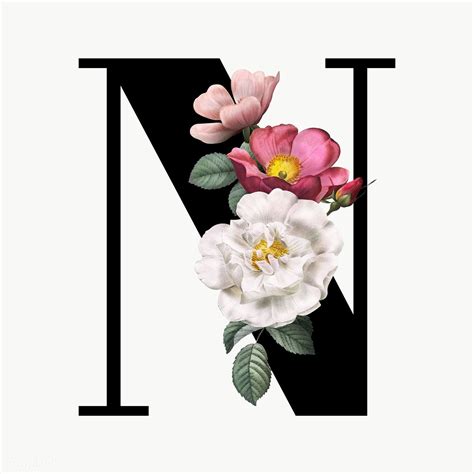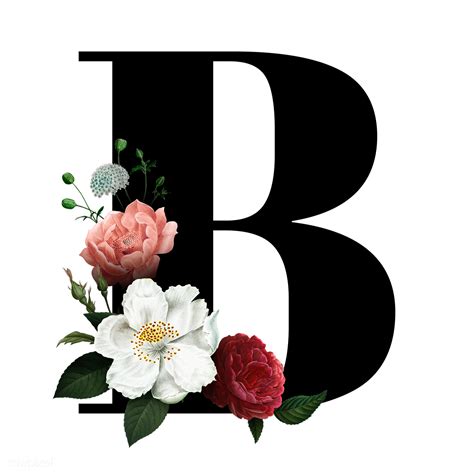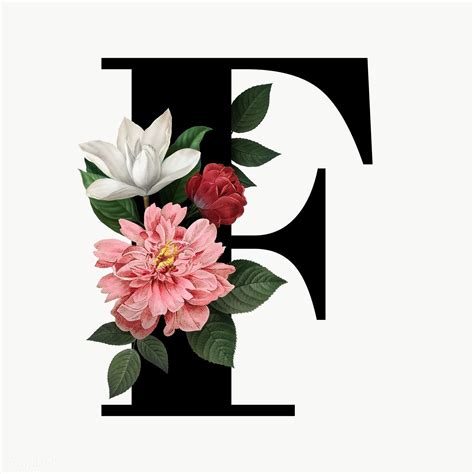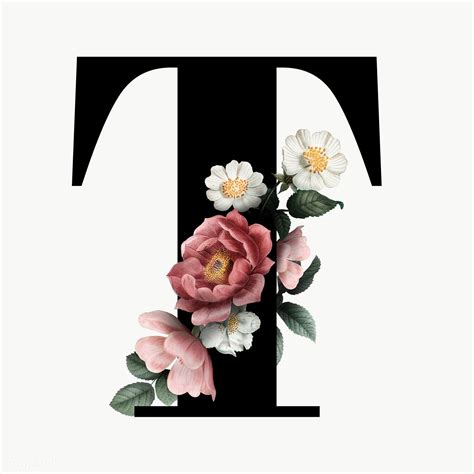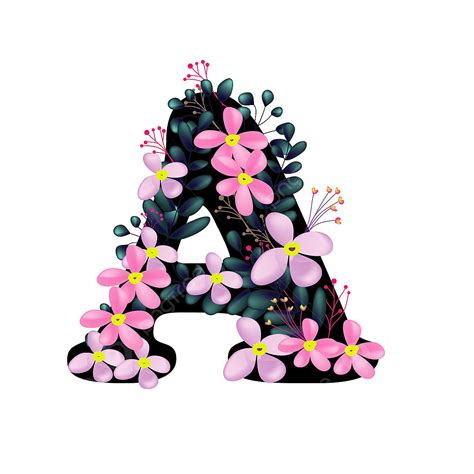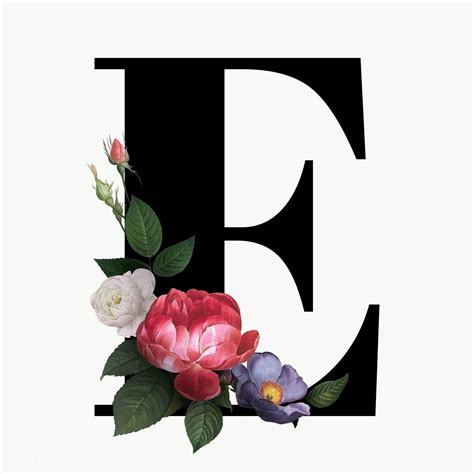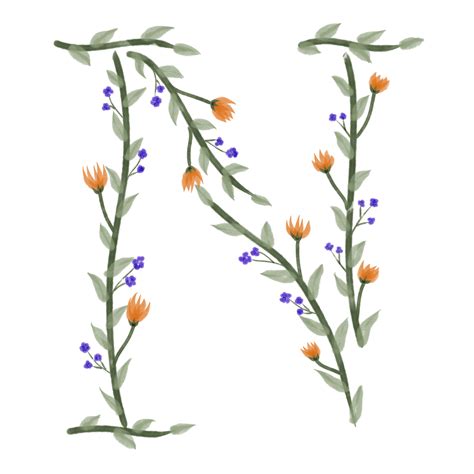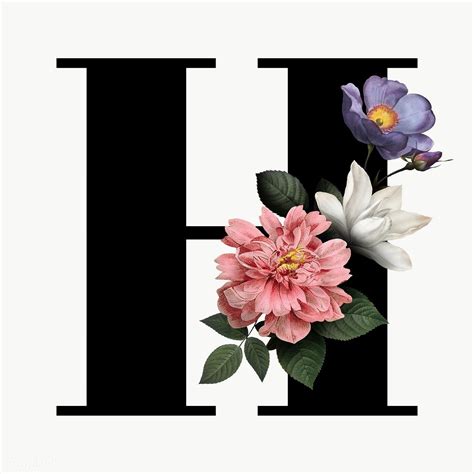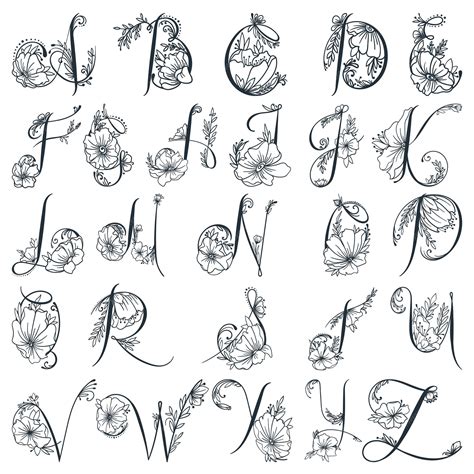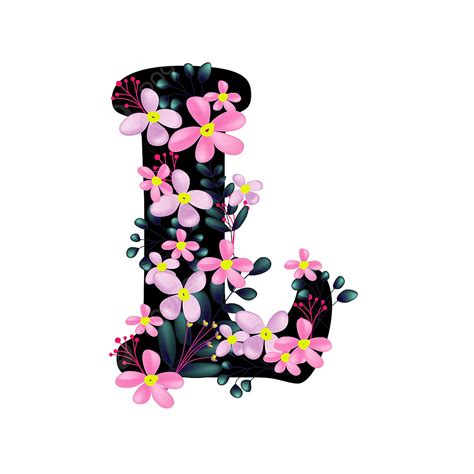
The art of typography has germinate importantly, shift from rigid, useful structure to expressive, organic forms that capture the eye and heart alike. Among the most enchanting trends in modern digital design is the use of a Floral Alphabet Font. These intricate letterforms, which seamlessly blend botanical factor with legible characters, provide a singular visual language for divine appear to add a touch of elegance to their projects. Whether you are craft splice invitations, personal branding, or digital stationery, integrate floral-themed typography can instantly promote the perceived value and esthetical appeal of your work. By integrating delicate petals, twine vine, and blooming flowers into the very architecture of your letters, you make an immersive experience that experience both artisanal and sophisticated.
Why Designers Love Floral Typography
The popularity of cosmetic botanical lettering is root in its versatility. Unlike standard sans-serif or serif fonts, a Floral Alphabet Font acts as both text and representative. This treble functionality is priceless for decorator who go with taut space constraint but want to maintain a high level of artistic detail. When you take the correct baptistery, you are not just opt a fount; you are selecting a visual tone that communicates gracility, organic beauty, and aid to particular.
Key Advantages for Creative Projects
- Emotional Resonance: Peak evoke nature and sentiment, making these baptistery hone for celebratory case.
- Visual Complexity: The intricate point trim the demand for extra background graphics or ornaments.
- Dateless Elegance: Botanical theme have been a stylemark of classic design for 100, ensuring your project remain fashionable.
- Brand Preeminence: Apply a custom-styled floral alphabet aid your visual identity stand out in a concentrated market.
Choosing the Right Style for Your Project
Not all flowered typefaces are created equal. Some direction on dense, realistic petal, while others apply minimalist line employment. To take the perfect Floral Alphabet Font, study the main medium of your employment. For print stuff such as brochures or greeting cards, high-contrast designs with clear legibility are essential. Conversely, if you are working on large-format posters or digital landing pages, you can experiment with more ornate, sprawling botanical element that demand care.
| Style Category | Best Employment | Optical Characteristic |
| Hand-Drawn Botanical | Stationery, Invitations | Rough, authentic, ink-like texture |
| Vintage Ornate | Book screening, Stigmatise | Detailed etching, classical flowered motifs |
| Mod Minimalist | Societal media, Web UI | Clean lines, subtle efflorescence emphasis |
Techniques for Customizing Floral Letters
Erst you have get a baptistery that matches your sight, the existent fun begins in the customization phase. Decorator oftentimes discover that simply typing out language is but the start point. By wangle the spacing, color, and stratum effects of your Floral Alphabet Font, you can transubstantiate a standard lineament into a personalised piece of art. Regard using gradient overlay to afford petal a vivid depth or layering textures behind the schoolbook to heighten the organic feel of the composing.
💡 Note: Always ascertain your chosen font support high-resolution scaling to sustain the unity of fragile petal edges when enlarging for print.
Improving Readability with Botanical Design
One challenge often confront with extremely cosmetic fonts is discernability. To speak this, designer should pair the Floral Alphabet Font with a simpler, secondary typeface. This contrast allows the eye to breathe on the plain text for informational limpidity, while the flowered letters serve as the artistic focal point. Moreover, study increasing the tracking (missive spacing) to give the botanical ingredient room to suspire without overlap, which can sometimes clutter the overall constitution.
Incorporate a floral alphabet typeface into your creative toolkit open up a world of possibilities for visual storytelling. By cautiously select styles that array with your specific task goals and use serious-minded pattern rule like balancing legibility with ribbon, you can make part that feel deep personal and masterfully craft. As you keep to experiment with these botanical letterforms, remember that the finish is to enhance the message through beauty and aesthetic manifestation, allowing your employment to blossom in a way that vibrate with every looker who chance your alone floral alphabet composition.